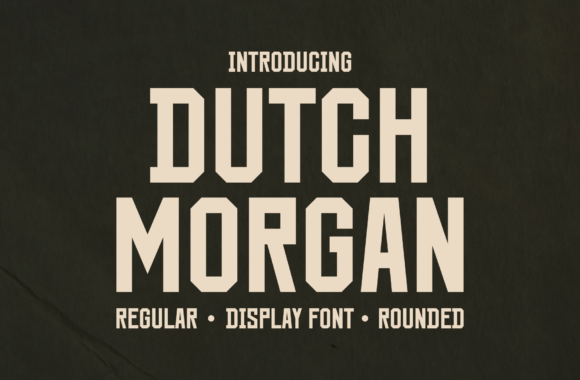
Dutch Morgan Font: A Retro-Style Sans Serif for Modern Designs
In the world of typography, fonts play a crucial role in defining the visual identity of a brand or design. With numerous options available, selecting the right font can be a daunting task. However, if you’re looking for a font that exudes strength, stability, and a touch of vintage charm, look no further than the Dutch Morgan font. This retro-style sans serif font is designed to make a statement, offering a bold and compact appearance that’s perfect for designs that require a robust and confident look.
What is Dutch Morgan Font?
Dutch Morgan is a carefully crafted sans serif font that draws inspiration from classic typography. Its condensed structure gives it a unique, bold appearance that’s ideal for headlines, titles, and designs that require a strong visual impact. The font’s retro-style aesthetic is reminiscent of vintage designs from the past, yet its clean lines and sharp edges ensure it remains modern and relevant.
Key Benefits of Dutch Morgan Font
- Bold and Compact: Dutch Morgan’s condensed structure makes it perfect for designs that require a robust and confident look.
- Retro-Style Aesthetic: The font’s vintage charm adds a touch of nostalgia to any design.
- Versatile: Dutch Morgan offers two versatile options: Regular and Rounded, making it suitable for a wide range of design projects.
- Legible: The font’s clean lines and sharp edges ensure excellent legibility, even at smaller sizes.
Exploring the Styles of Dutch Morgan Font
Dutch Morgan offers two distinct styles: Regular and Rounded. Both styles retain the font’s solid and sturdy character, making it a perfect choice for projects that seek to combine a vintage aesthetic with modern reliability.
Regular Style
The Regular version of Dutch Morgan maintains a clean, sharp edge, giving it a crisp and modern appearance. This style is perfect for designs that require a bold and confident look, such as:
- Headlines and titles
- Logos and branding
- Advertising and marketing materials
Rounded Style
The Rounded variant of Dutch Morgan softens the overall feel with smooth, curved corners. This style is ideal for designs that require a more approachable and friendly look, such as:
- Packaging and product design
- Digital interfaces and user experience
- Children’s books and educational materials
Using Dutch Morgan Font in Your Designs
Dutch Morgan font is a versatile typeface that can be used in a wide range of design projects. Here are some ideas to get you started:
Examples of Dutch Morgan in Use
- Branding and Identity: Use Dutch Morgan to create bold and memorable logos, business cards, and letterheads.
- Advertising and Marketing: Dutch Morgan is perfect for creating eye-catching headlines and titles for advertisements, flyers, and brochures.
- Packaging and Product Design: The Rounded variant of Dutch Morgan is ideal for creating friendly and approachable packaging designs.
- Digital Design: Use Dutch Morgan to create modern and clean digital interfaces, including websites, mobile apps, and social media graphics.
Pairing Dutch Morgan with Other Fonts
When pairing Dutch Morgan with other fonts, it’s essential to choose typefaces that complement its bold and compact appearance. Here are some font pairing suggestions:
Font Pairing Suggestions
- Open Sans: A clean and modern sans serif font that pairs well with Dutch Morgan’s bold appearance.
- Lato: A sleek and elegant sans serif font that complements Dutch Morgan’s retro-style aesthetic.
- Merriweather: A classic serif font that pairs well with Dutch Morgan’s bold and compact appearance.
In conclusion, Dutch Morgan font is a versatile and stylish typeface that’s perfect for designs that require a bold and confident look. With its retro-style aesthetic, condensed structure, and two distinct styles, Dutch Morgan is an excellent choice for a wide range of design projects. Whether you’re creating a logo, headline, or digital interface, Dutch Morgan is sure to make a statement.